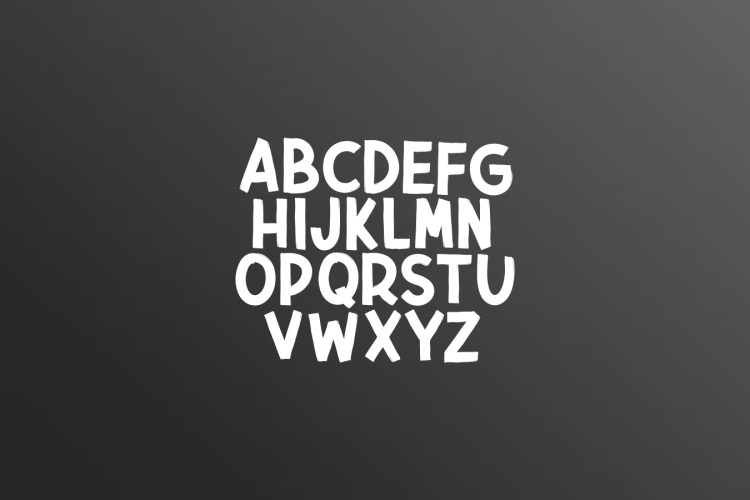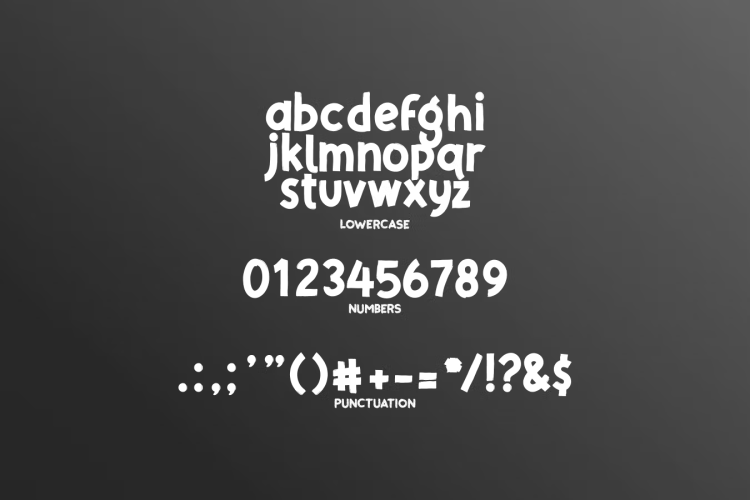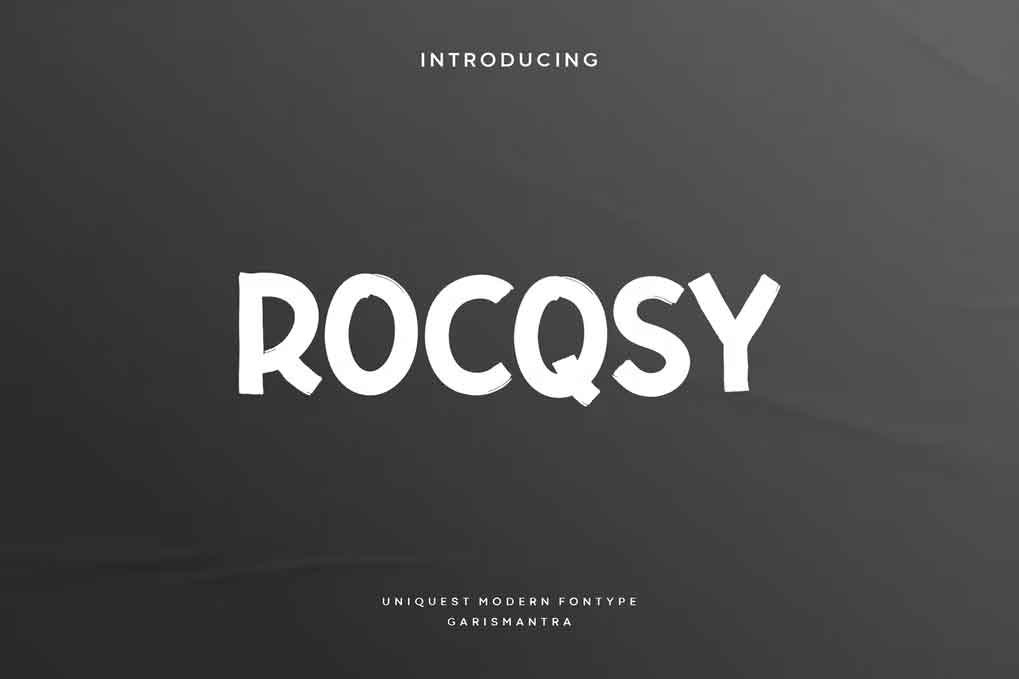
Rocqsy Font
Rocqsy font is a display font in the style of children’s handwriting with a little improvisation in the uppercase mode, and a dynamic touch to the lowercase. This font is perfect for anything related to food, children, children’s illustrations, book titles, website titles, video writing, or anything else you can try to gain experience in your graphic design needs.
Rocqsy Font is a Decorative Fonts font that brings a professional and versatile look to your projects. Rocqsy font is a display font in the style of children’s handwriting with a little improvisation in the uppercase mode, and a dynamic touch to the lowercase.